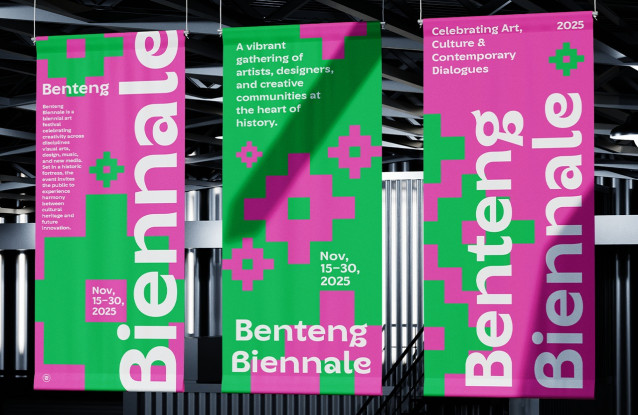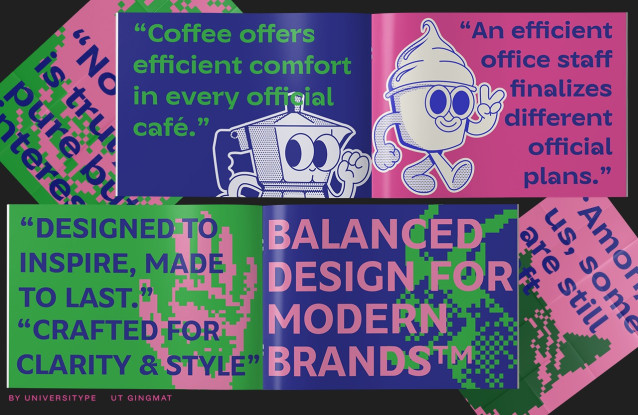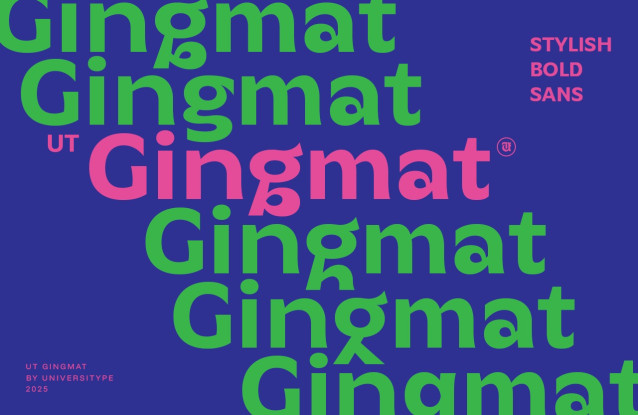
UT Gingmat Font
UT Gingmat Font is a modern, geometric sans-serif font crafted to turn heads and make a statement. With its bold curves and playful details, it bridges the gap between futuristic sharpness and approachable friendliness. Designed for branding, posters, digital interfaces, and any project that demands attention, Gingmat delivers clarity with personality.
Target Audience
Perfect for designers, creatives, and brands who want typography that feels bold, fresh, and unmistakably modern. From cultural events to startups, fashion labels to tech platforms, Gingmat adapts seamlessly to projects that need a stylish edge.